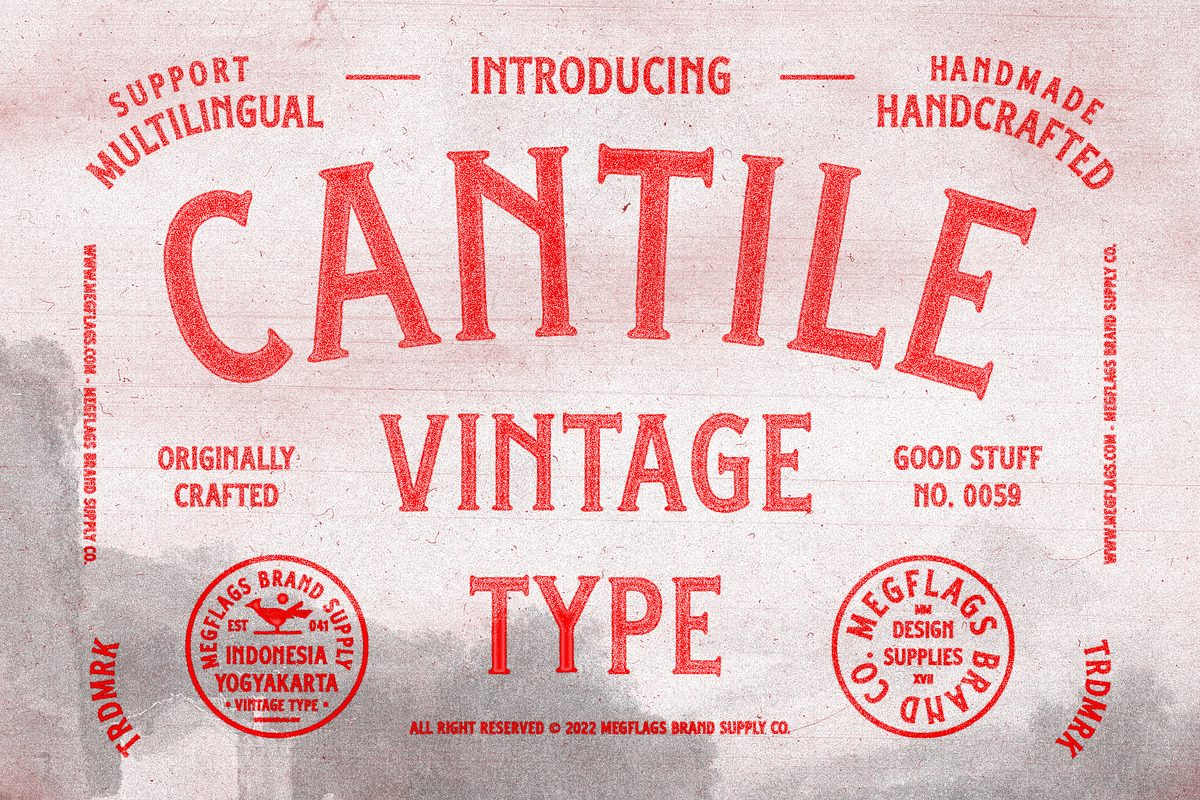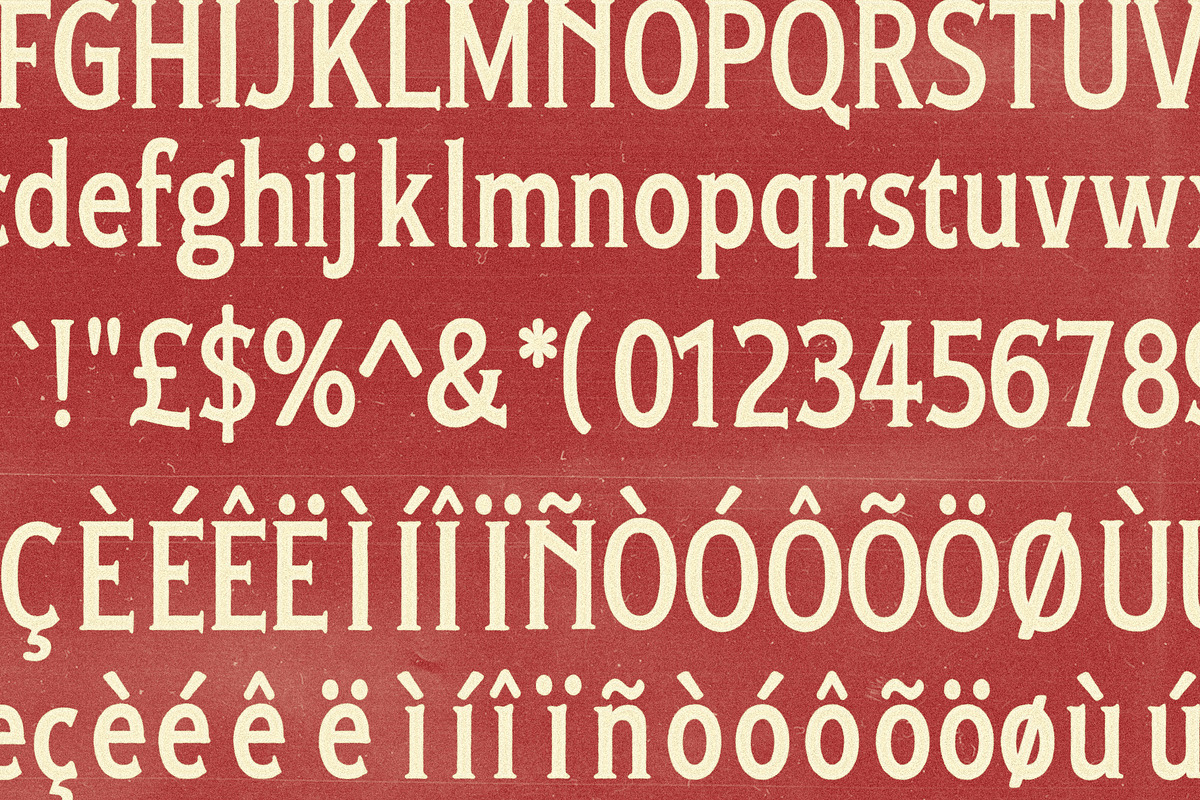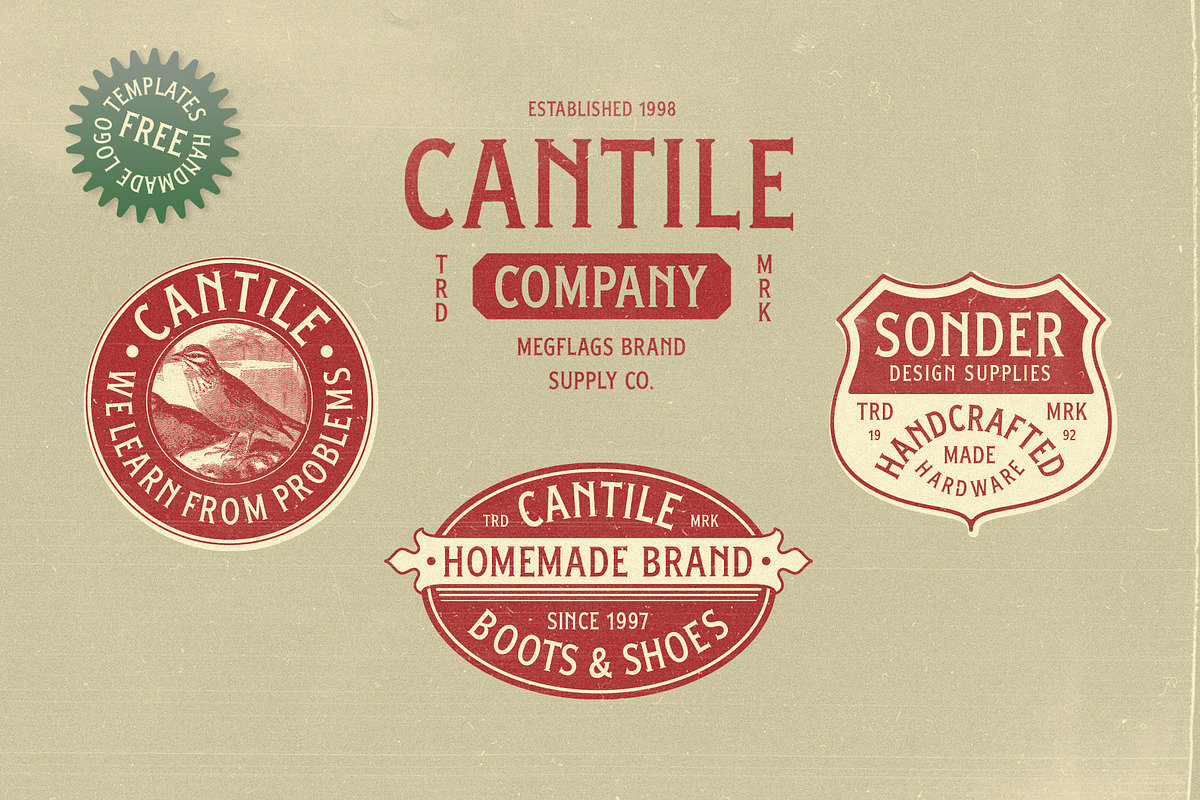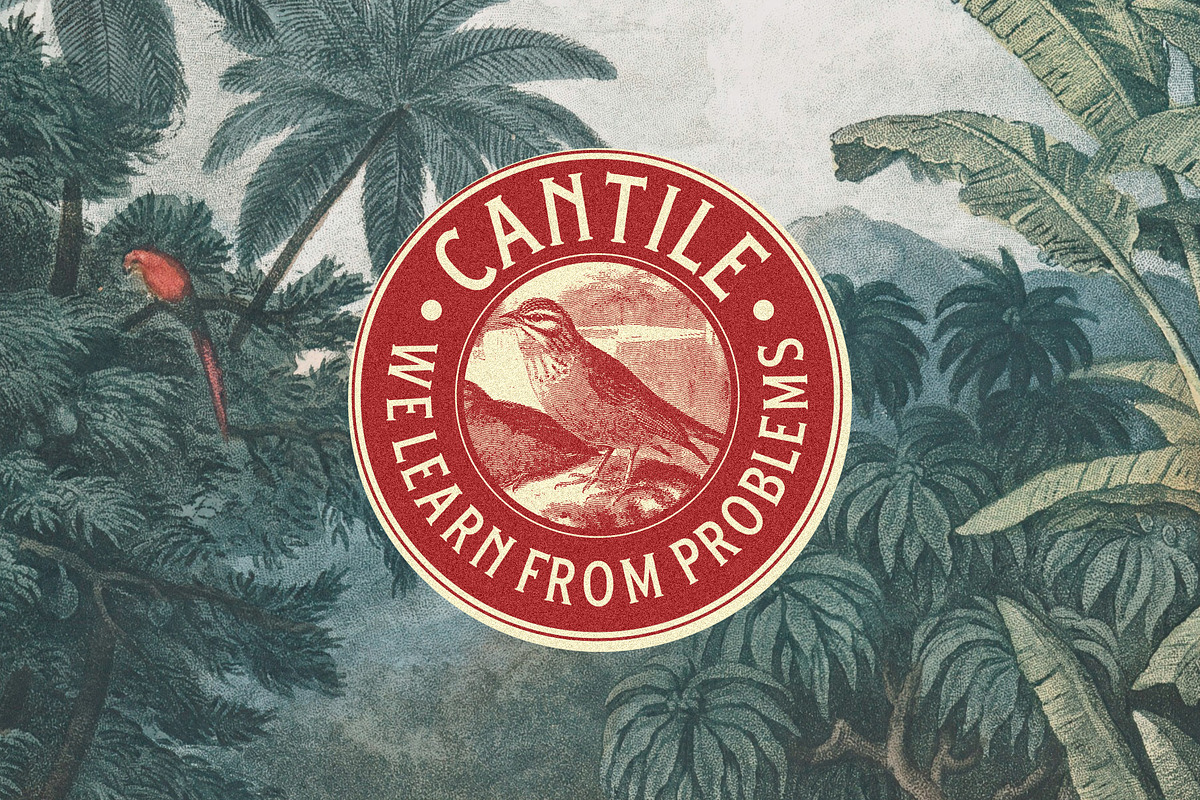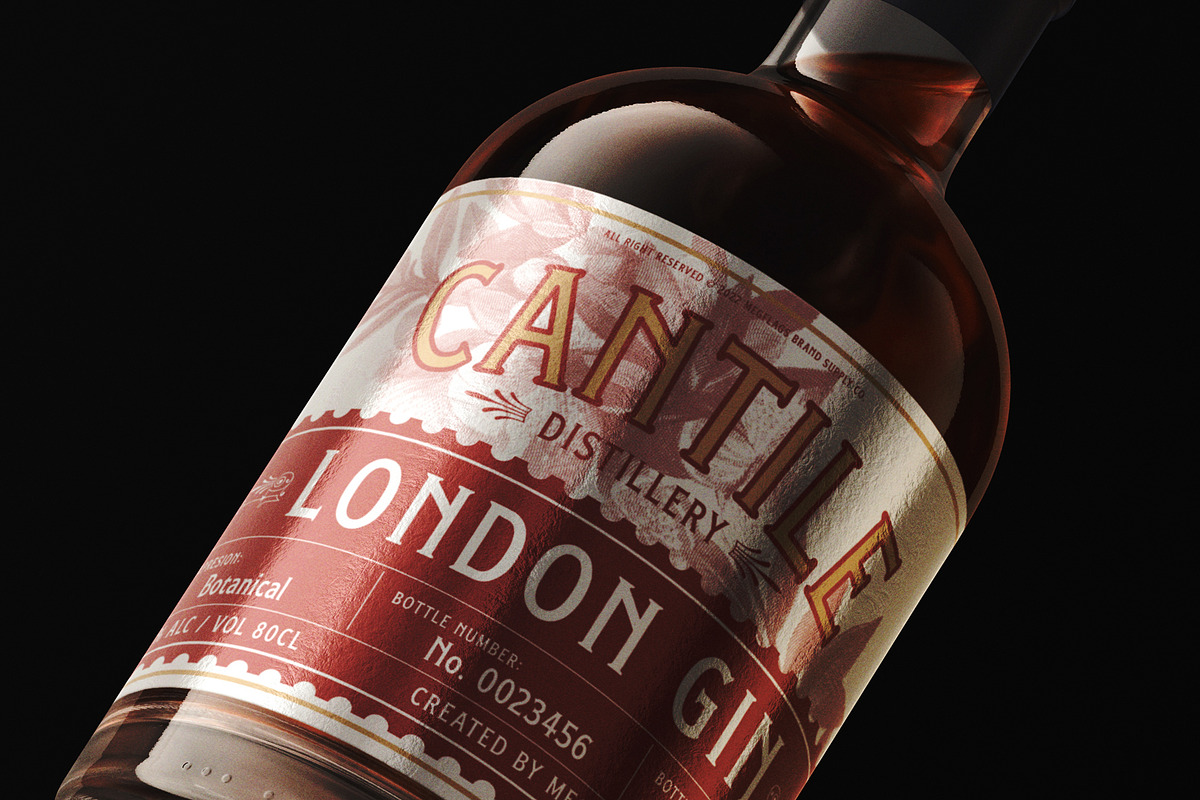
Cantile Vintage
Cantile Vintage Type by Megflags Brand Co.
Inspired by vintage paper, front-store sign, poster vintage, each of line is handdrawn uniquely that will definitely fit to shape you brand. Really great for logo, branding, packaging design, posters, banners, stationery, t-shirts, or merchandise!